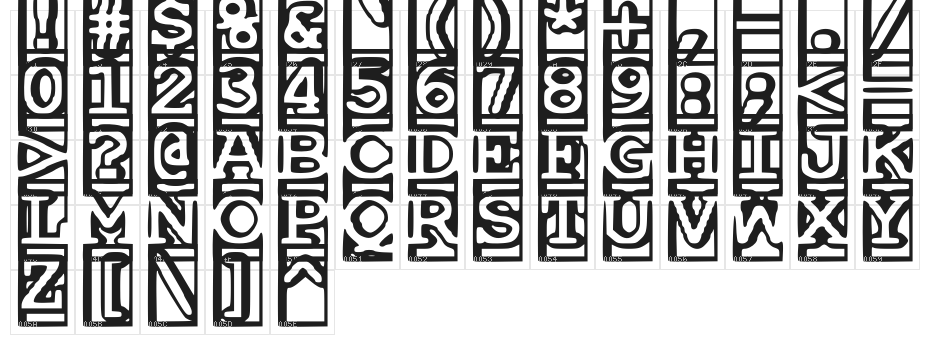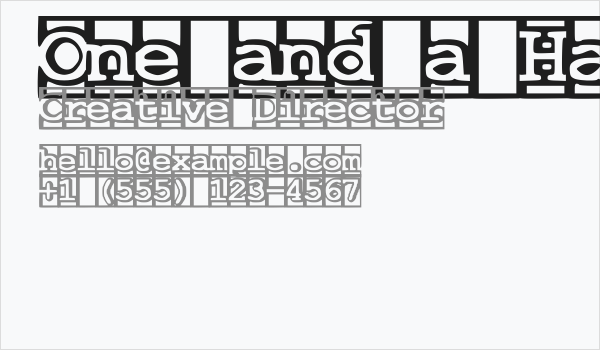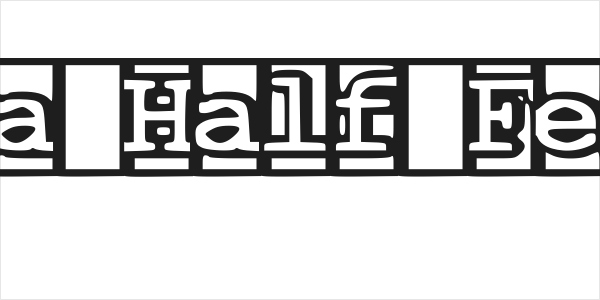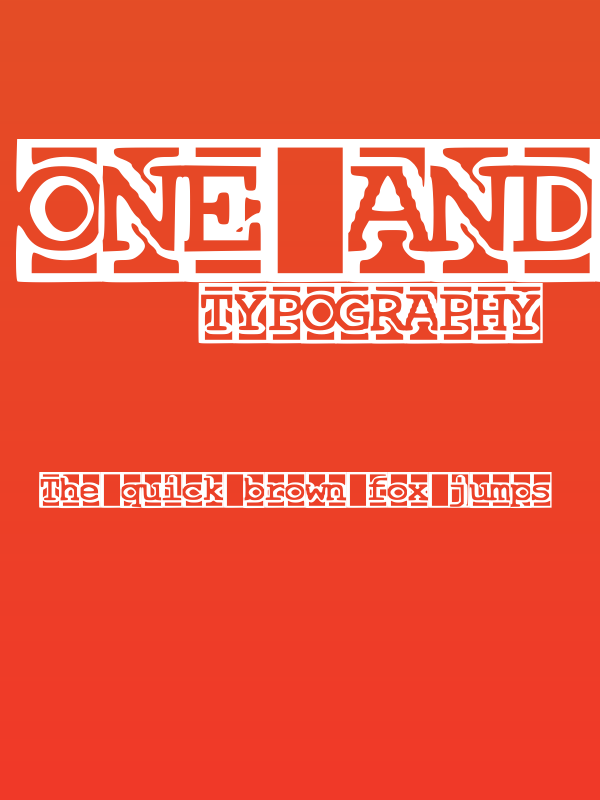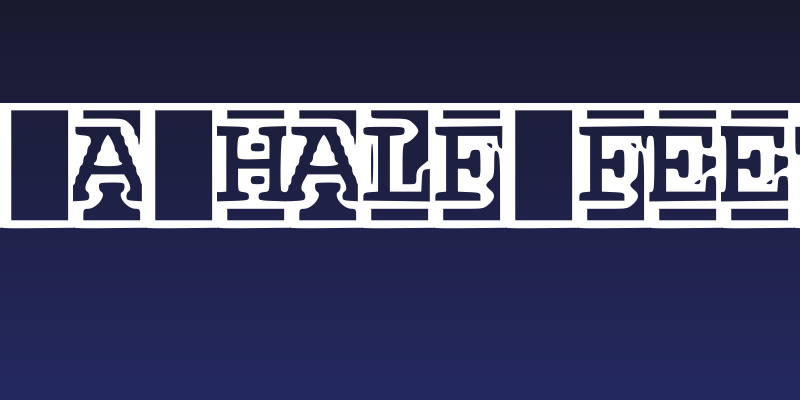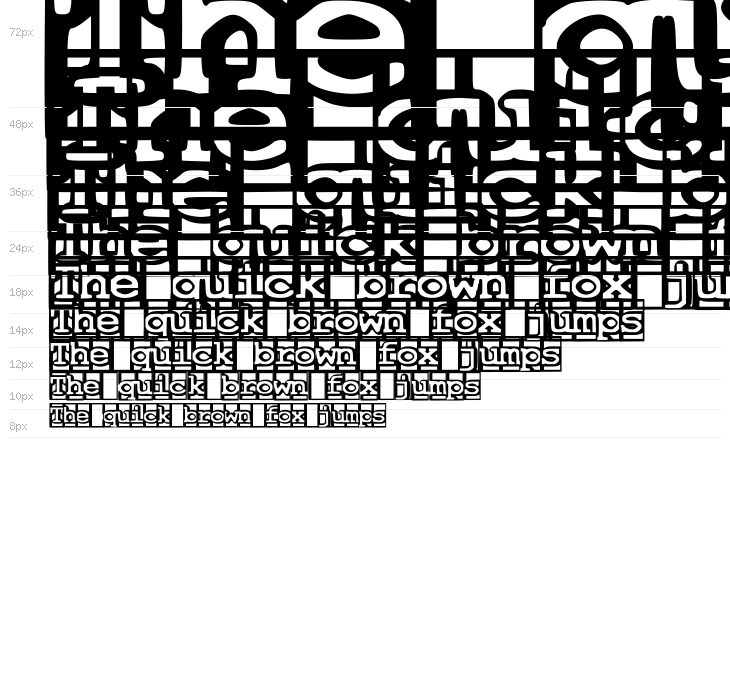
One and a Half Feet Under Font
One and a Half Feet Under Description
This font features a bold, decorative style with a unique outline effect that gives each character a three-dimensional appearance. The uppercase and lowercase letters maintain a consistent design, with strong, angular lines and a playful, cartoonish flair. The numbers and special characters follow the same aesthetic, ensuring a cohesive look across all text. The font's thick strokes and outlined edges make it highly legible and eye-catching, suitable for attention-grabbing designs. Its playful nature lends itself well to creative projects, adding a touch of fun and personality to any text.
| Proposed Projects | Ideal for posters, comic books, children's books, and playful branding projects. |